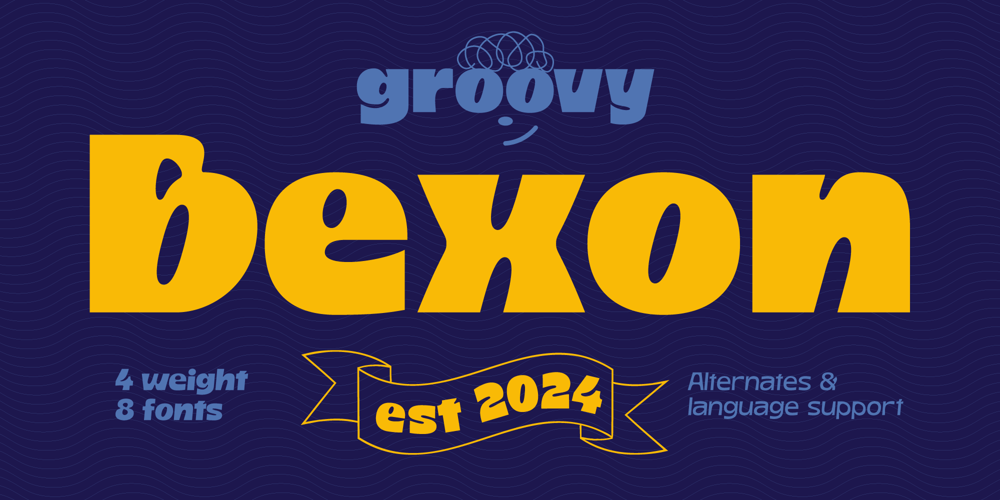
Bexon Font Family was designed by Tatiana Yunina and published by Mira. Bexon contains 8 styles and family package options. Introducing Bexon, a typeface that seamlessly blends playfulness with sophistication, capturing the essence of groovy design with a contemporary flair. Its whimsical curves harmonize with clean, precise lines, striking the perfect balance between joy and professionalism. Bexon is ideal for posters, branding, and any creative project that demands a hint of retro charm infused with modern elegance. Make a stylish and precise statement with Bexon, your ultimate choice for adding a unique touch to your designs.